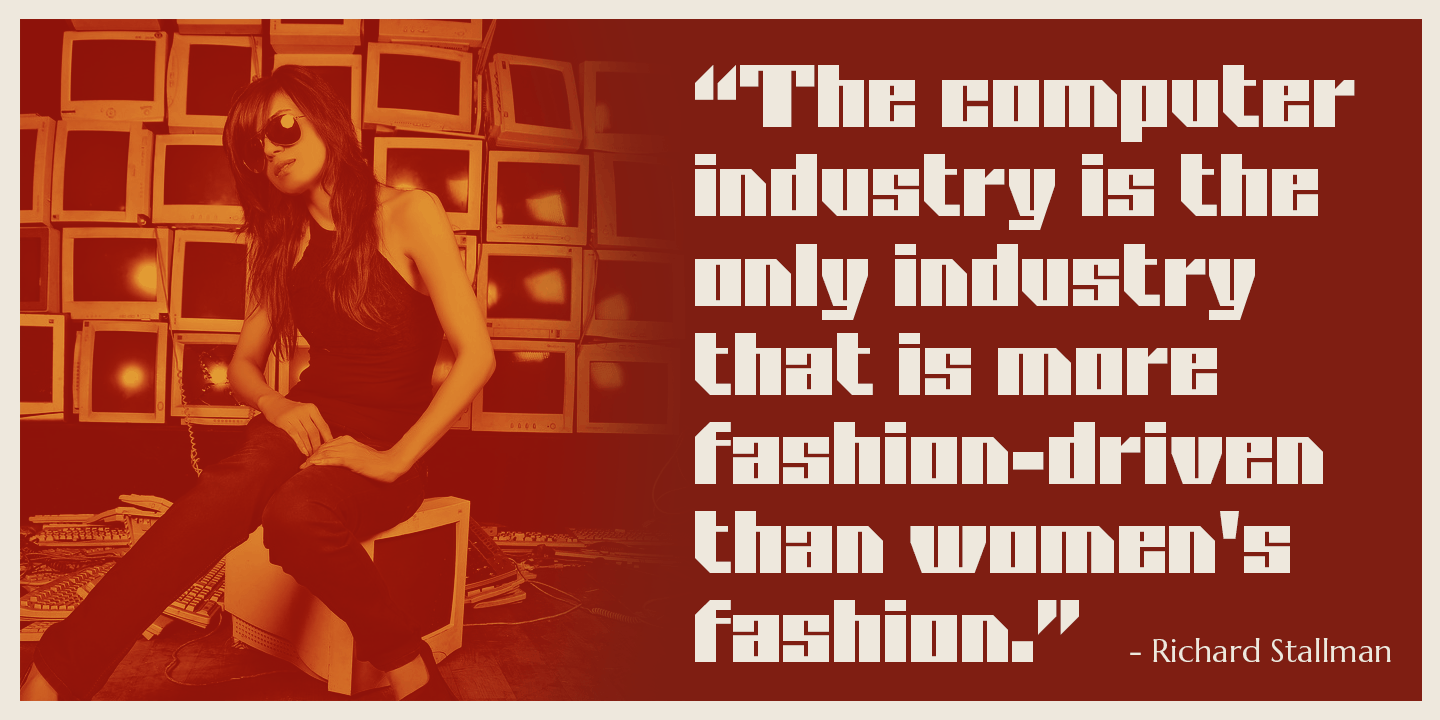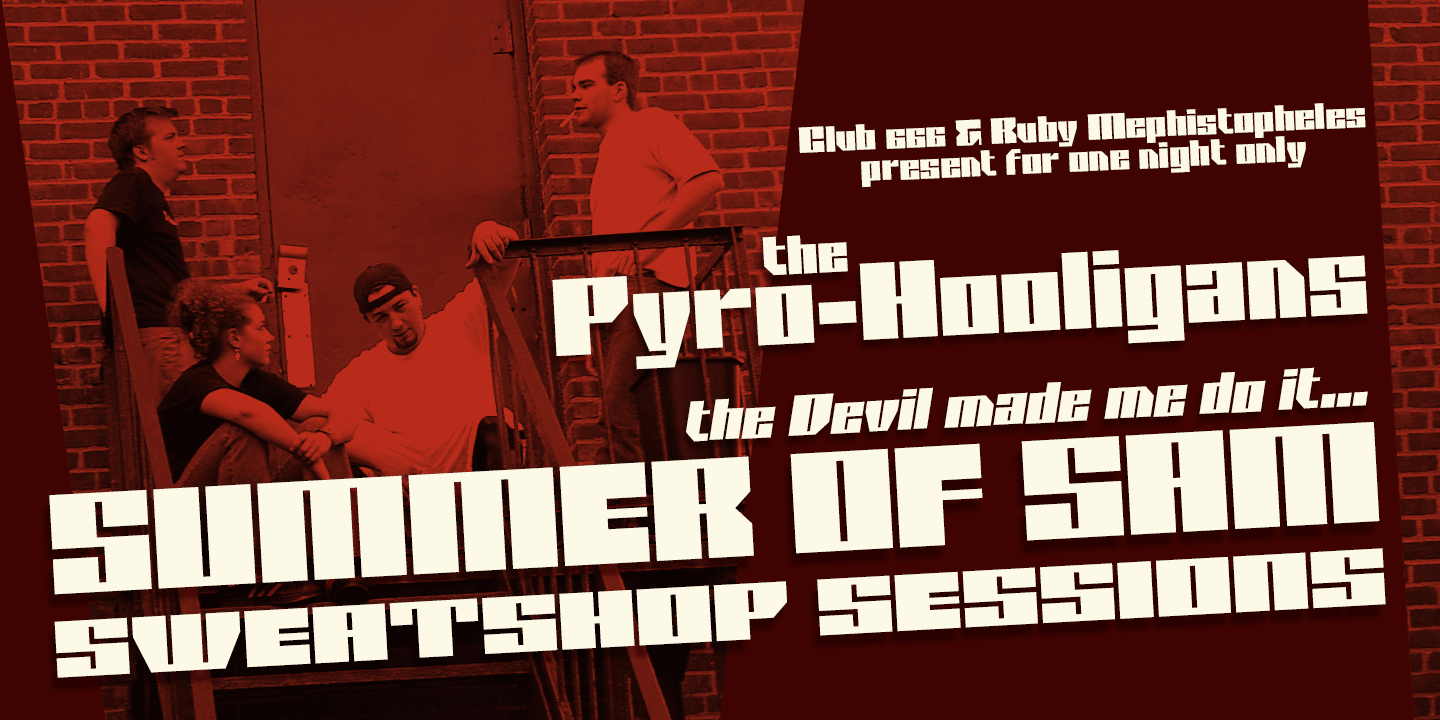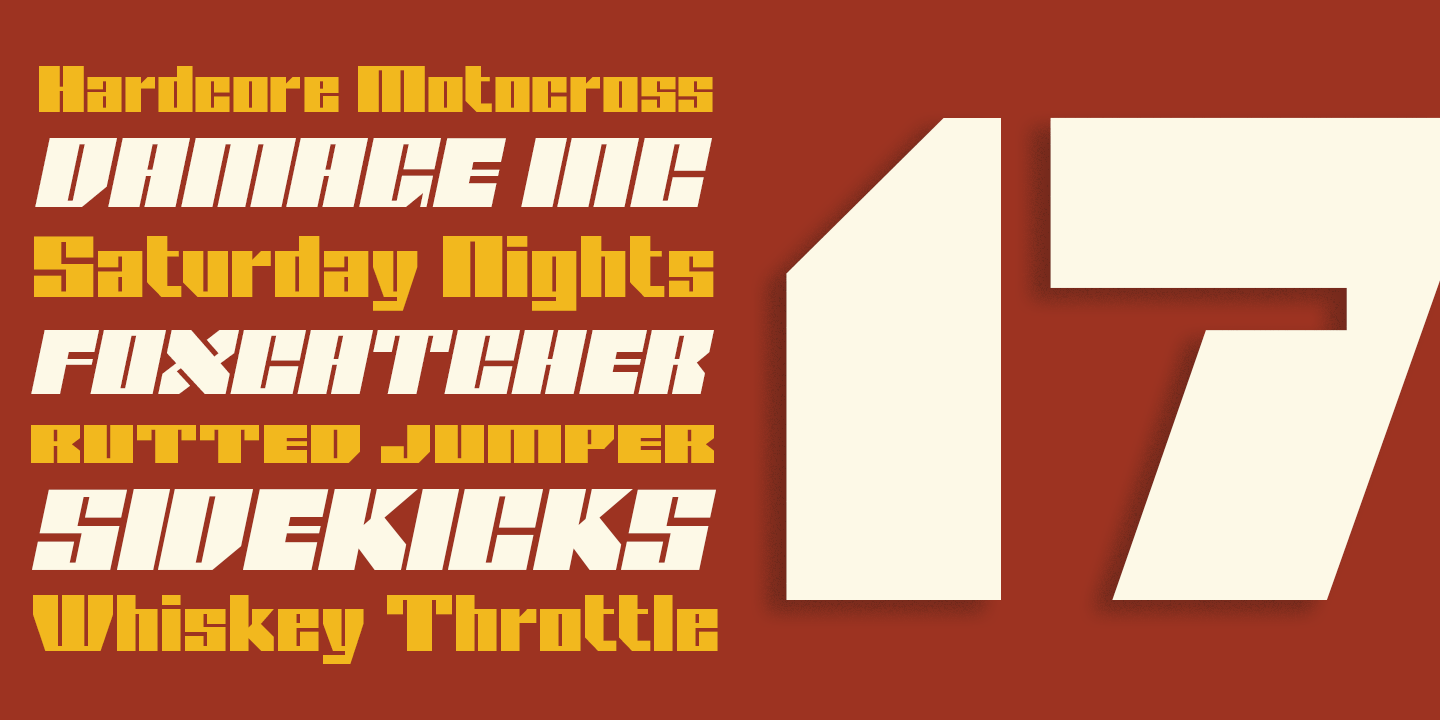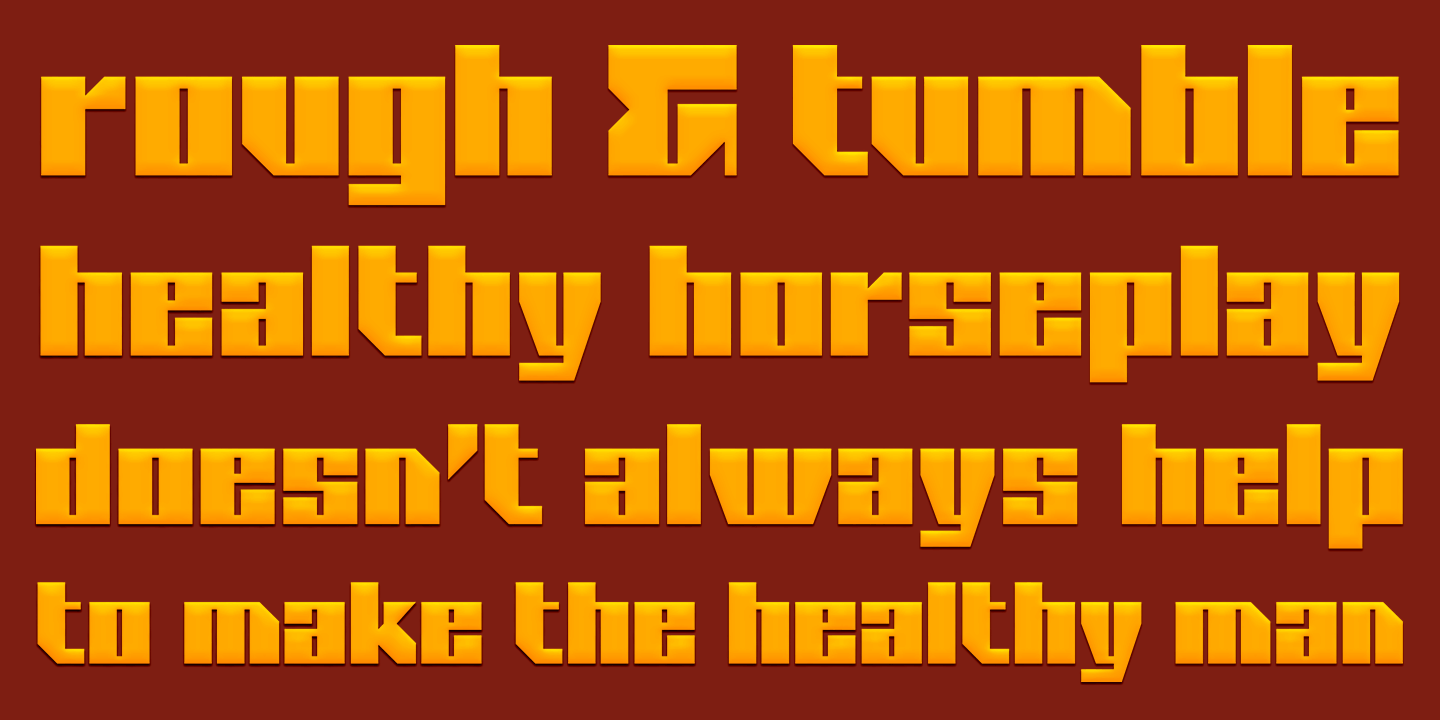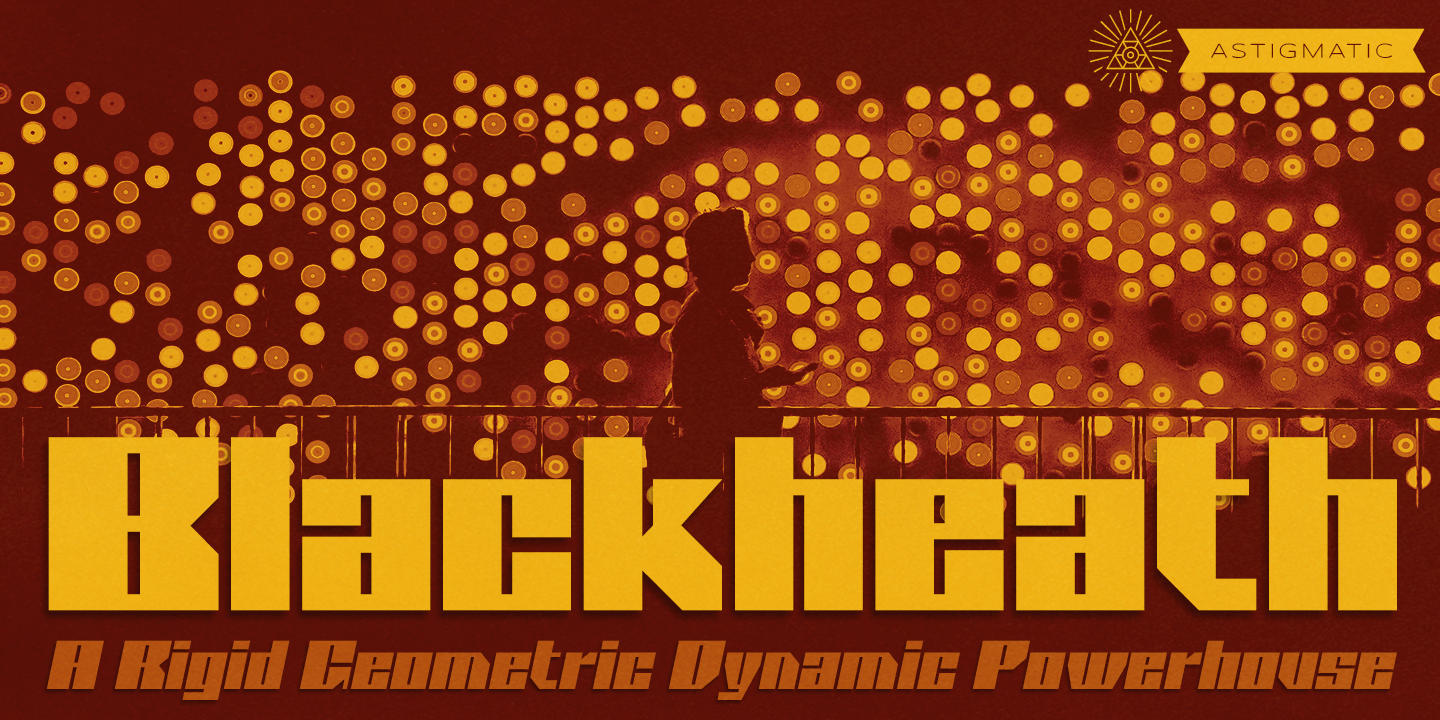
Blackheath Pro AOE
About Blackheath Pro AOE
Bold dynamic typography finds its home in Blackheath Pro AOE. Geared up and dialed into an industrial/sports dynamic vibe, Blackheath Pro AOE started as a digitization of a film typeface called Roberts Square by LetterGraphics. From there, this rigid…